Swashes are a set of decorative, calligraphic elements added to type. Fonts with swashes are more ornamental than normal fonts. Let’s go to booming your typography design with these awe inspiring fonts with swashes. Some fonts looks really amazing, when nice swashes are added to give some extra flavor and makes it more classy.
In this comprehensive collection we have gathered a nice bunch of fonts with swashes for your designing business needs. Keep a good mood and enjoy.
Colossalost Script with Swash
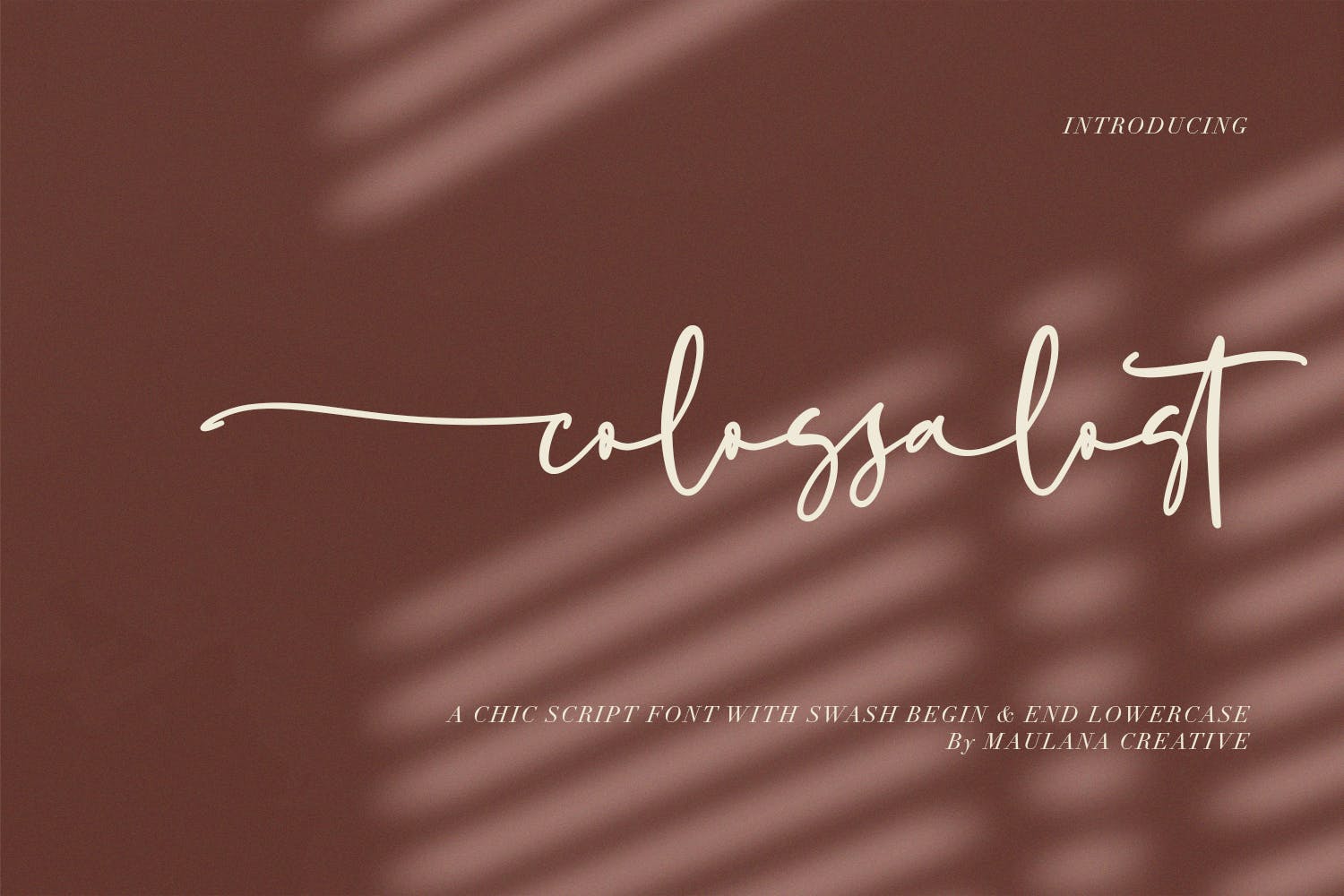
It is a fun script font, fresh and modern style. Colossalost script font suitable for logo, branding, greeting card, poster and any design that you create.
Free Acterum Signature Font
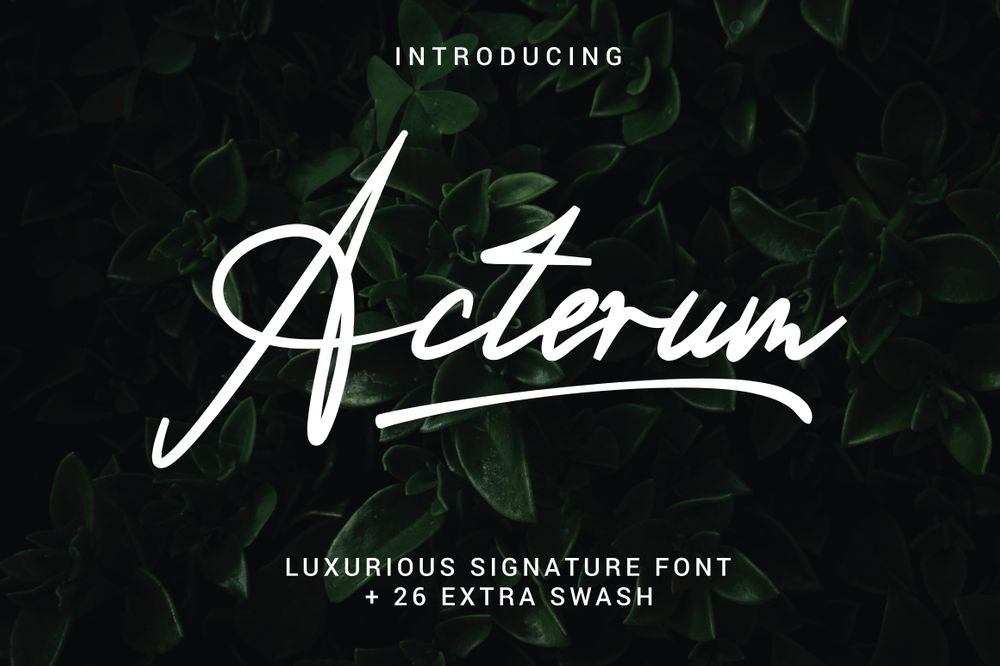
It is a free signature font with an awesome bonus which is 26 swashes. It is suitable for your projects that will make it look more beautiful like postcards, brochures, flyers, posters, lettering and etc.
Free Donatellia Font
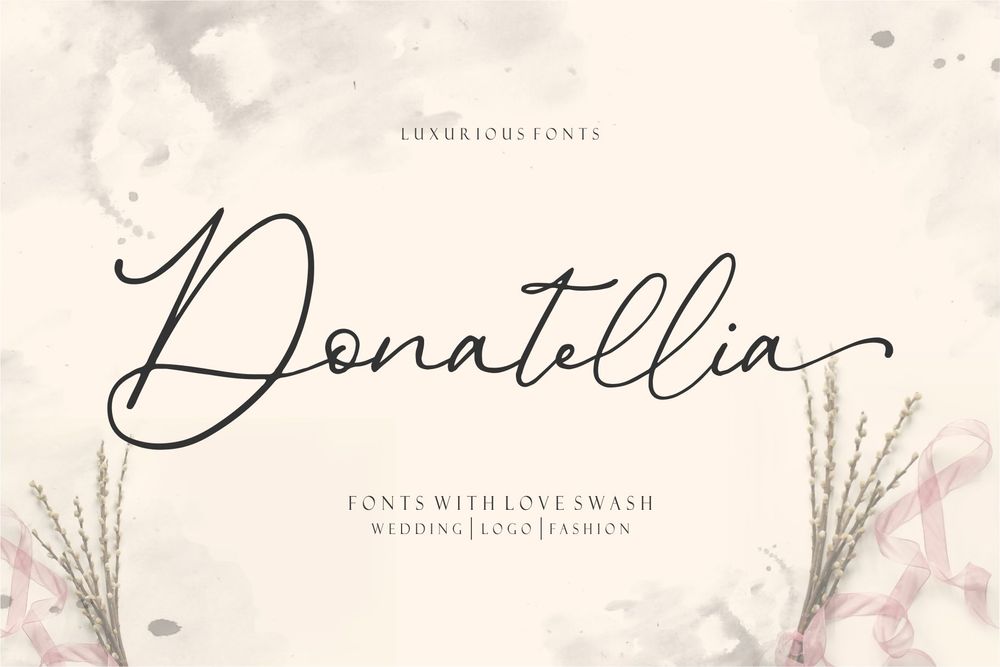
Amazing free script font with swashes for your typography design. Perfect for postcards, greeting cards, wedding, posters and etc.
Roselind Handwritten Font
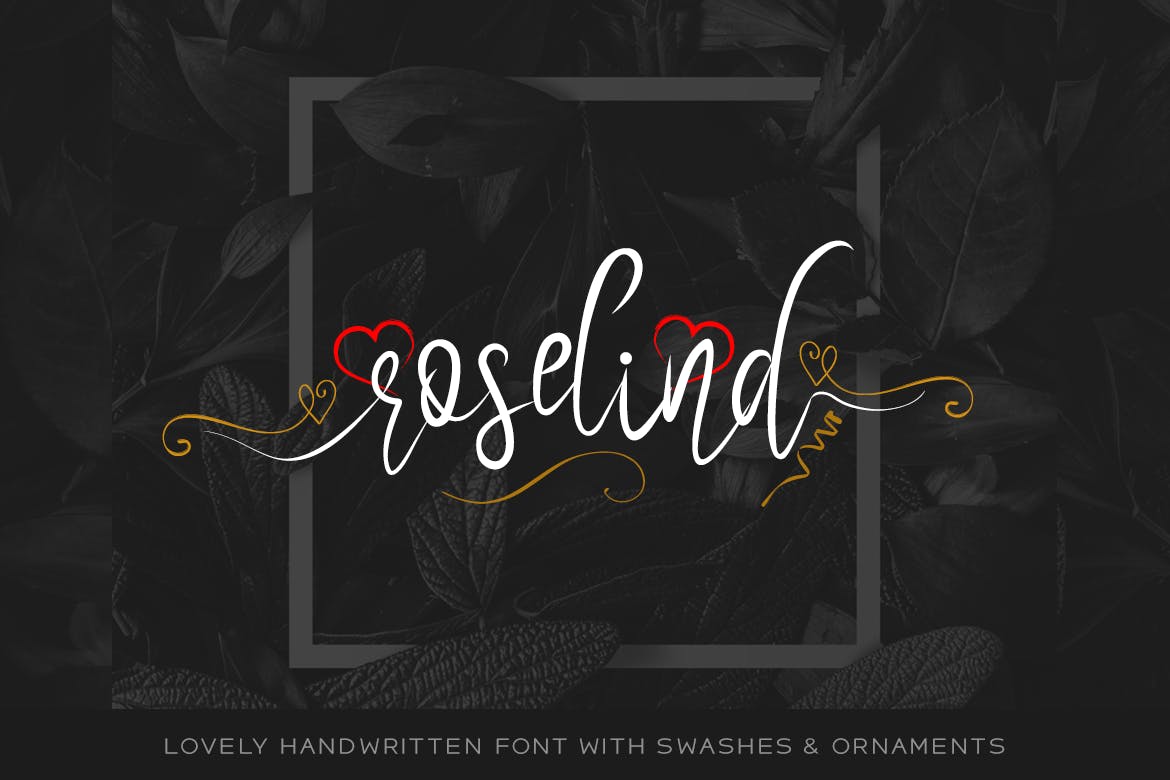
It is a beautiful handwritten font with dedicated swashes & ornaments. This font is perfect for wedding & invitation cards, lovely posters, cute logos and anything in between.
Slimpick – Brush Font with Swash
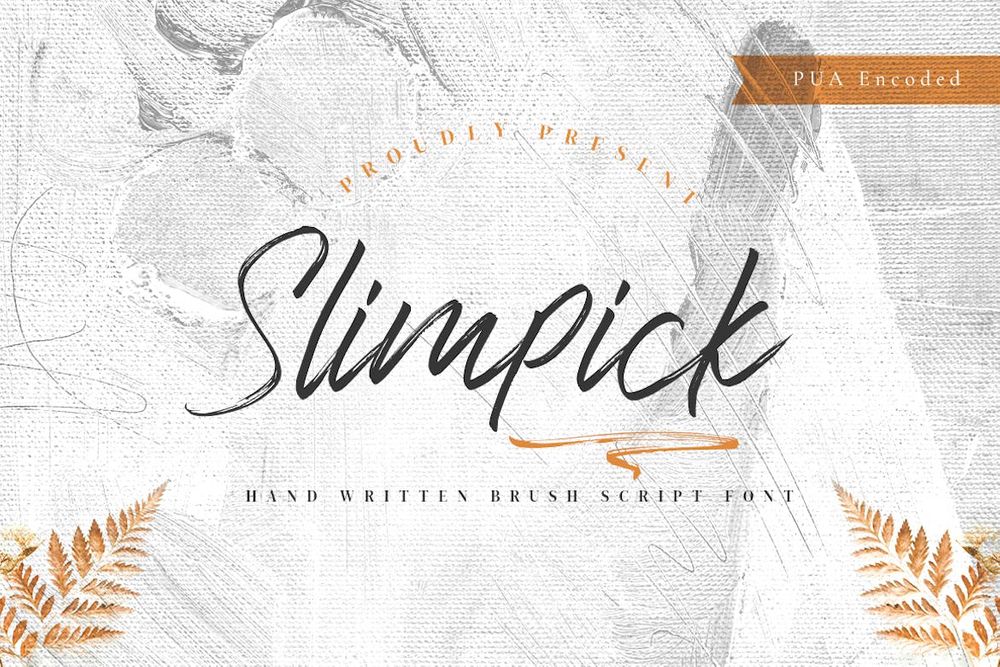
It is a modern handwritten font with a quick-dry stroke. Slimpick is perfect for photography, watermark, social media posts, advertisements, logos & branding, invitations, product designs, labels and etc.
Alpenable Signature Font
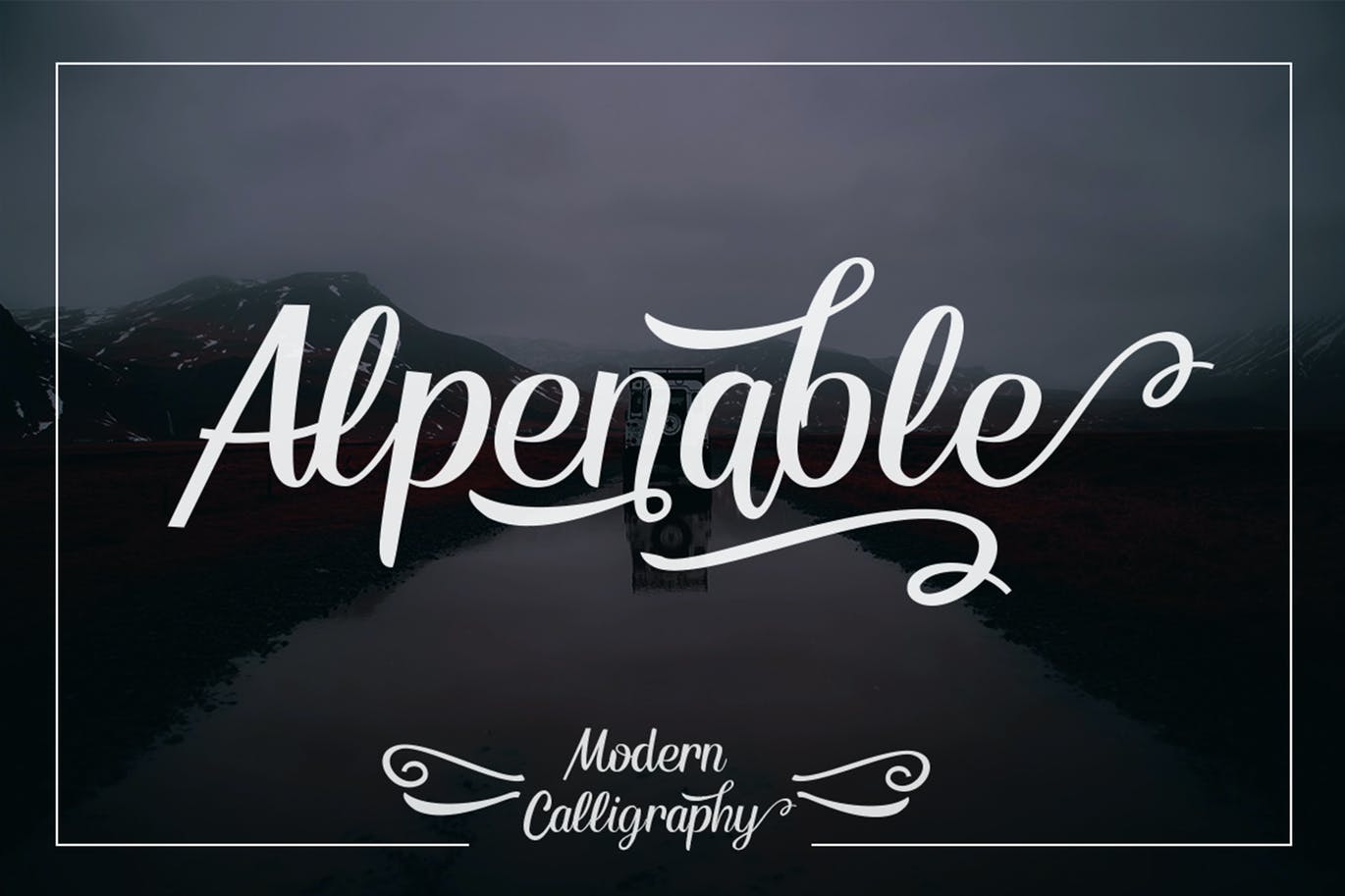
It is another lovely modern calligraphy typefaces, which is combining the style of classic calligraphy with an modern style. So beautiful on invitation like greeting cards, branding materials, business cards, quotes, posters and etc.
Gardenia Script Font with Swash
Gardenia script with swash a handcrafted script font with a handwritten style make this font looks elegant, natural, stylish. Perfect for handcrafted, craft, invitation, logos & branding, photography, advertisements and etc.
Shalma – Script Handwritten Font
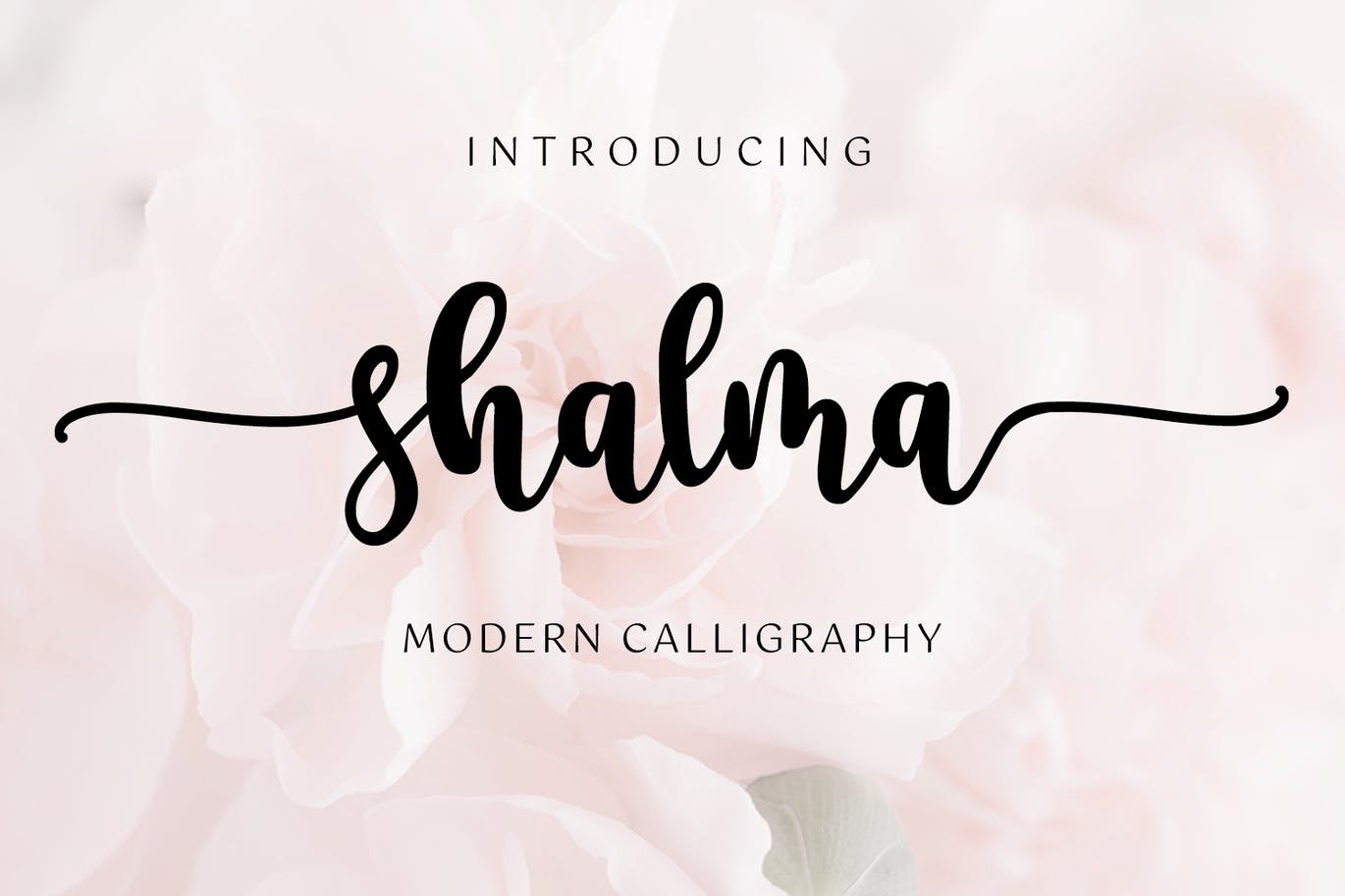
It is a script handwritten with swash font making this font look elegant, natural and stylish. Perfect for invitation, logos & branding , photography, advertisements, watermark, social media posts, product packaging and etc.
Wellfare – Handwritten Swash Font
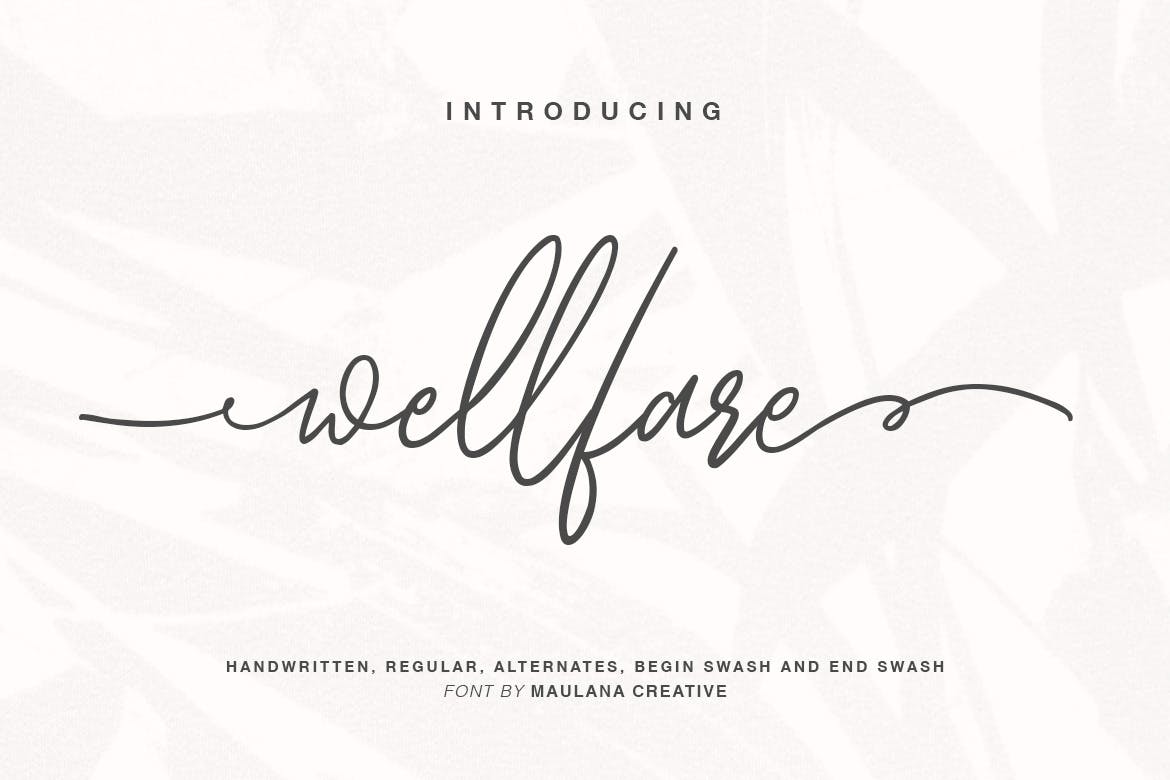
It is a fashionable sophisticated signature-style script with its own unique curves and an elegant inky flow. Perfect for branding projects, logo, wedding designs, social media posts, advertisements, product packaging, product designs, labels and etc.
Ambyttion – Swash Handwritten Font
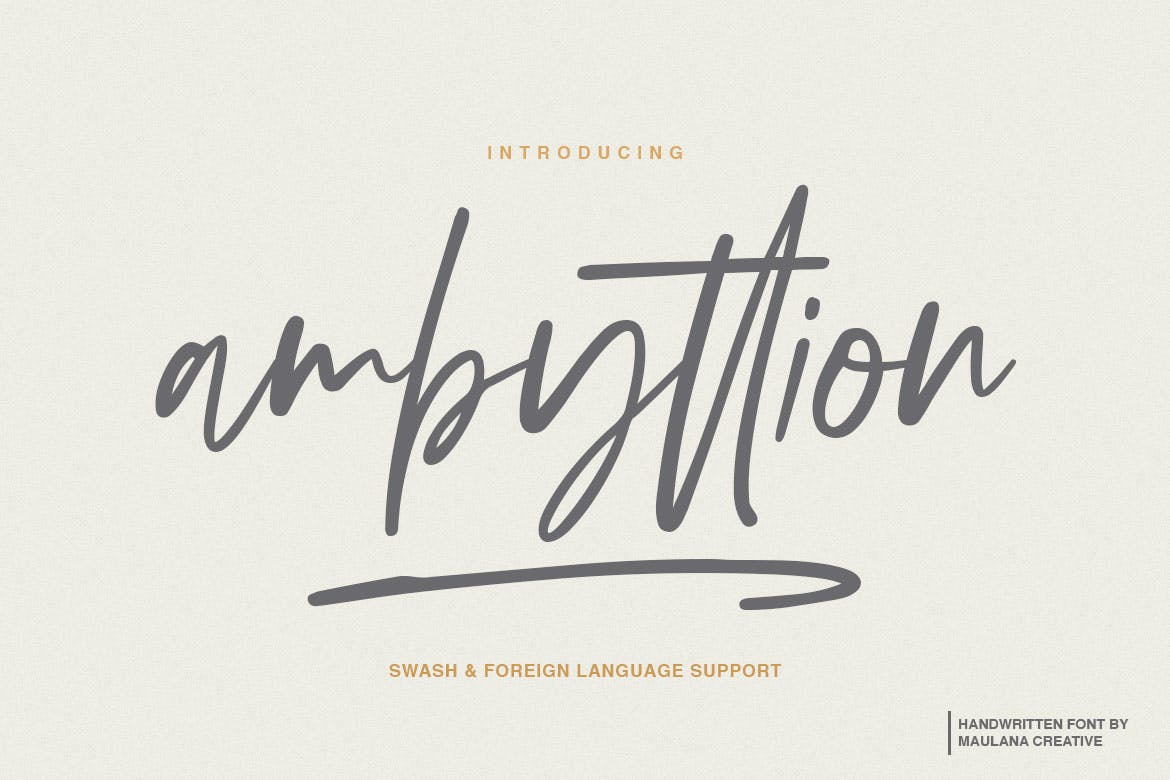
Give your designs an authentic handcrafted feel. Ambyttion is perfectly suited to signature, stationery, logo, typography quotes, magazine or book cover and etc.
Collibryums – Signature Swash Font
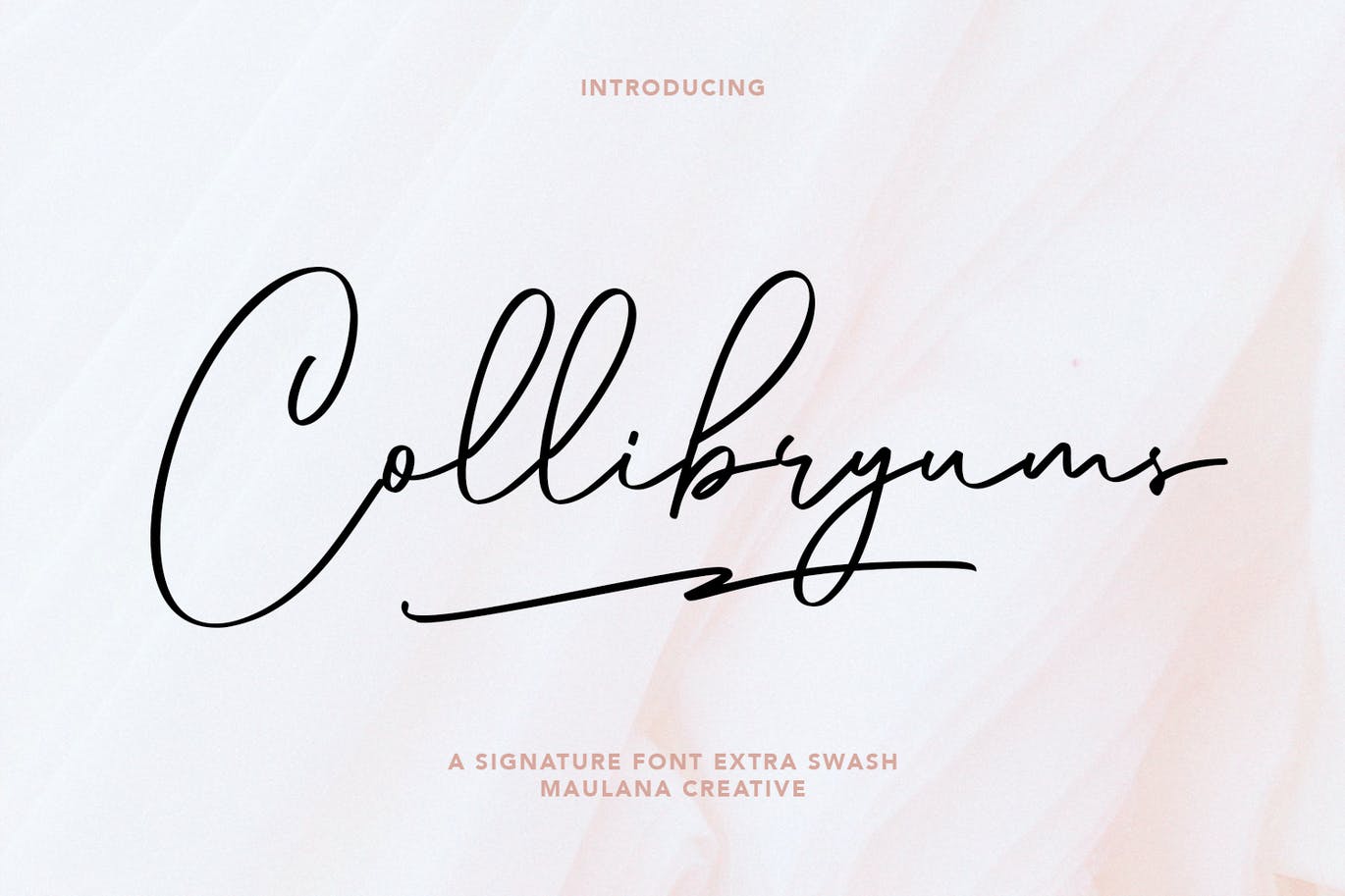
It is a modern signature font inspired by social media advertising and product titles. This font is good for logo design, social media, movie titles, book titles and etc.
Mirabille Swash Script Font
Give your designs an authentic handcrafted feel. Mirabille swash script font is perfectly suited to signature, stationery, logo, typography quote, magazine or book cover, website header, clothing and etc.
Acoustic -Swash Calligraphy
It is an calligraphy font with swash is a font with distinctive handwritten characters perfect for branding projects, logos, wedding designs, media posts, advertisements, product packaging and etc.
Lovely Script Font
It is a font created with a special touch to giving a beautiful and attractive look. Very suitable if applied to every design such as poster designs, signatures, logos, quotes, album covers and etc.
Fleur Bleue – Beautiful Romantic Font
It’s a natural handwritten script beautified with alternative swashes that gives the romantic touch. Great choice for wedding party invitation, quotes, cards, logo, printing art and etc.
Free Oraqle Script Font
It is a free brush lettering font from union hands that features bold strokes and authentic brush texture that will make your design stand out. Perfect for postcards, greeting cards, business cards, cover titles and etc.
Free Matane Script Font
A new stylish script font with extra swashes. Perfect for greeting cards, posters, lettering, logos and etc.
Modernline / Handwriten Font
It is an organic handwritten font that is suitable for branding, signature, wedding invitation, promotion, product packaging, and other needs.
Heather Oliver Script Typeface
This versatile script typeface includes many different alternates for each lowercase letter. Works really well for logos and apparel design.
MUARA / Display Typeface
It is a typeface for classic taste, very suitable to make a design choice for books, magazines, packaging, branding, signage and more other creative projects.
Fatherly Bold – Wedding Swash Font
Featherly is a hand drawn, elegant, modern calligraphic font perfect for wedding design projects, invitations, greeting cards, signatures, watermarks, logos, handwriting and etc.